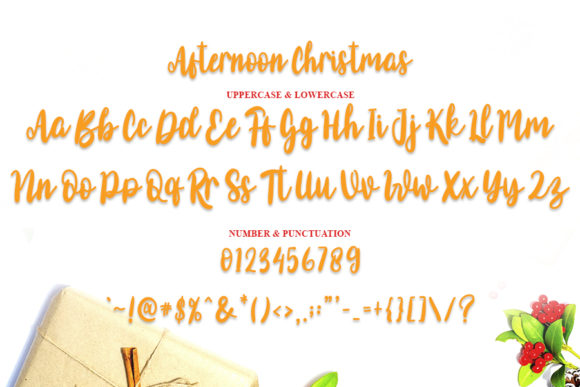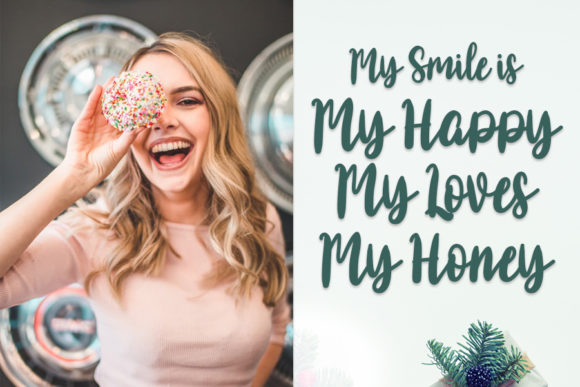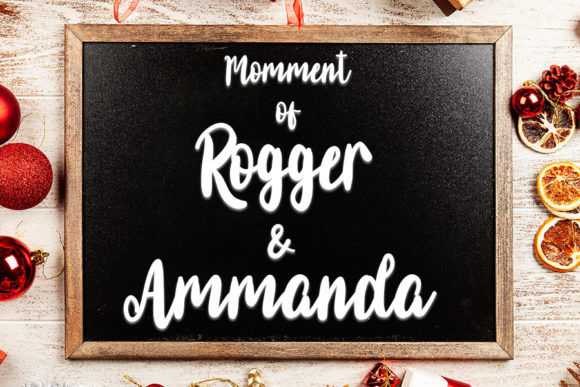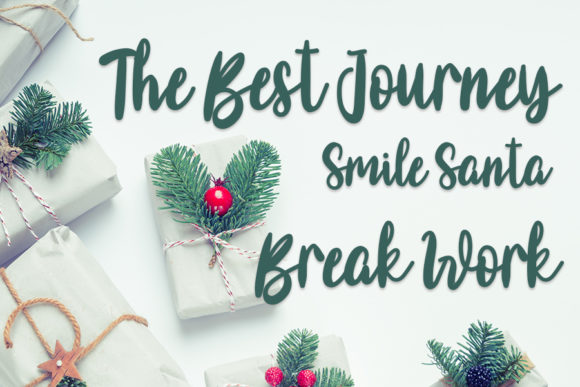
Introducing Afternoon Christmas Font: The Perfect Holiday Addition to Your Designs
The holiday season is upon us, and with it comes the need for festive and elegant designs that capture the spirit of Christmas. For designers and crafters looking to add a touch of romance and sophistication to their holiday-themed projects, the Afternoon Christmas font is an ideal choice. This beautiful, handwritten font is designed to bring a friendly, fresh, rich, and elegant feel to your creations, making it perfect for holiday greeting cards, crafting projects, and more.
What Makes Afternoon Christmas Font So Special?
Afternoon Christmas is a carefully crafted, handwritten font that exudes warmth and elegance. Its unique characters and flowing lines are designed to evoke a sense of romance and festivity, making it an excellent choice for any project that requires a personal touch. Whether you’re creating holiday greeting cards, invitations, or crafting projects, this font is sure to add a touch of magic to your designs.
Key Features of Afternoon Christmas Font
- Friendliness: The Afternoon Christmas font has a warm and inviting feel that’s perfect for holiday designs. Its friendly tone is sure to make your projects feel approachable and welcoming.
- Freshness: With its modern and elegant design, Afternoon Christmas is a fresh take on traditional holiday fonts. Its unique characters and flowing lines give it a youthful and vibrant feel that’s sure to capture the attention of your audience.
- Richness: The Afternoon Christmas font has a rich and luxurious feel that’s perfect for high-end holiday designs. Its elegant lines and sophisticated characters make it an excellent choice for designers looking to create premium holiday content.
- Elegance: Afternoon Christmas is an elegant and refined font that’s perfect for holiday designs that require a touch of sophistication. Its flowing lines and beautiful characters make it an excellent choice for designers looking to create elegant and refined holiday content.
Uses for Afternoon Christmas Font
The Afternoon Christmas font is incredibly versatile and can be used for a wide range of holiday-themed projects, including:
- Holiday Greeting Cards: Create beautiful and elegant holiday greeting cards that are sure to impress your friends and family.
- Crafting Projects: Add a touch of romance and sophistication to your crafting projects, such as scrapbooking, card making, and more.
- Invitations: Create elegant and refined holiday invitations that are sure to set the tone for your festive gatherings.
- Social Media Graphics: Add a touch of holiday cheer to your social media graphics, such as Facebook posts, Instagram stories, and more.
Tips for Using Afternoon Christmas Font
To get the most out of the Afternoon Christmas font, here are a few tips to keep in mind:
- Pair it with Other Fonts: Experiment with pairing Afternoon Christmas with other fonts to create a unique and visually appealing design.
- Use it in Combination with Images: Combine Afternoon Christmas with beautiful holiday images to create stunning and eye-catching designs.
- Experiment with Colors: Try out different colors and color combinations to find the perfect look for your holiday designs.
The Afternoon Christmas font is a beautiful and elegant addition to any holiday design project. Its friendly, fresh, rich, and elegant feel makes it perfect for holiday greeting cards, crafting projects, and more. With its versatility and range of uses, Afternoon Christmas is an excellent choice for designers and crafters looking to add a touch of romance and sophistication to their holiday creations.